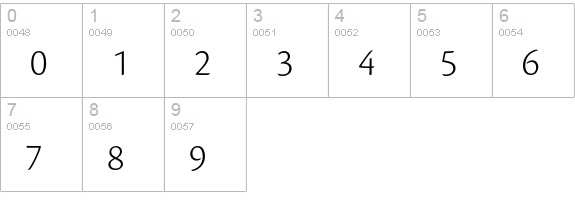
Cronos Pro Light Subhead is a refined, elegant variant in the Cronos typeface family \xE2\x80\x94 well suited to elegant body text, refined sub-headings, and luxury branding.
Cronos Pro Light Subhead font embodies elegance and sophistication with its clean lines and modern appeal. Perfect for adding a touch of refinement to any design project, this sleek typeface offers a delicate balance between professionalism and creativity. The light weight of the font exudes a sense of airiness and grace, making it ideal for use in subheadings, titles, and other display purposes. What sets Cronos Pro Light Subhead font apart is that it is available for free download at FontsMarket.com. This means that you can access this premium-quality typeface without any cost, making it a valuable addition to your font library. Whether you're working on a branding project, a website design, or any other creative endeavor, Cronos Pro Light Subhead font is sure to elevate your work with its timeless style and versatility. Download it today and see how this elegant font can enhance your designs.